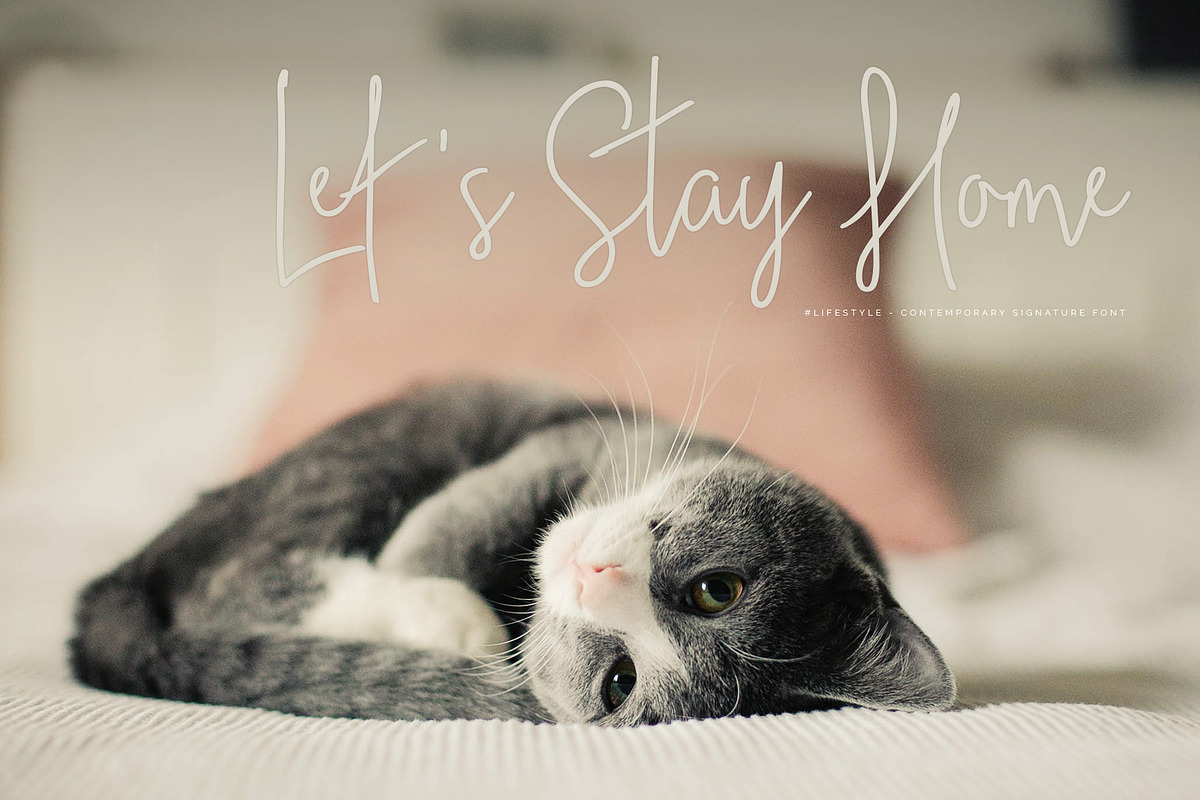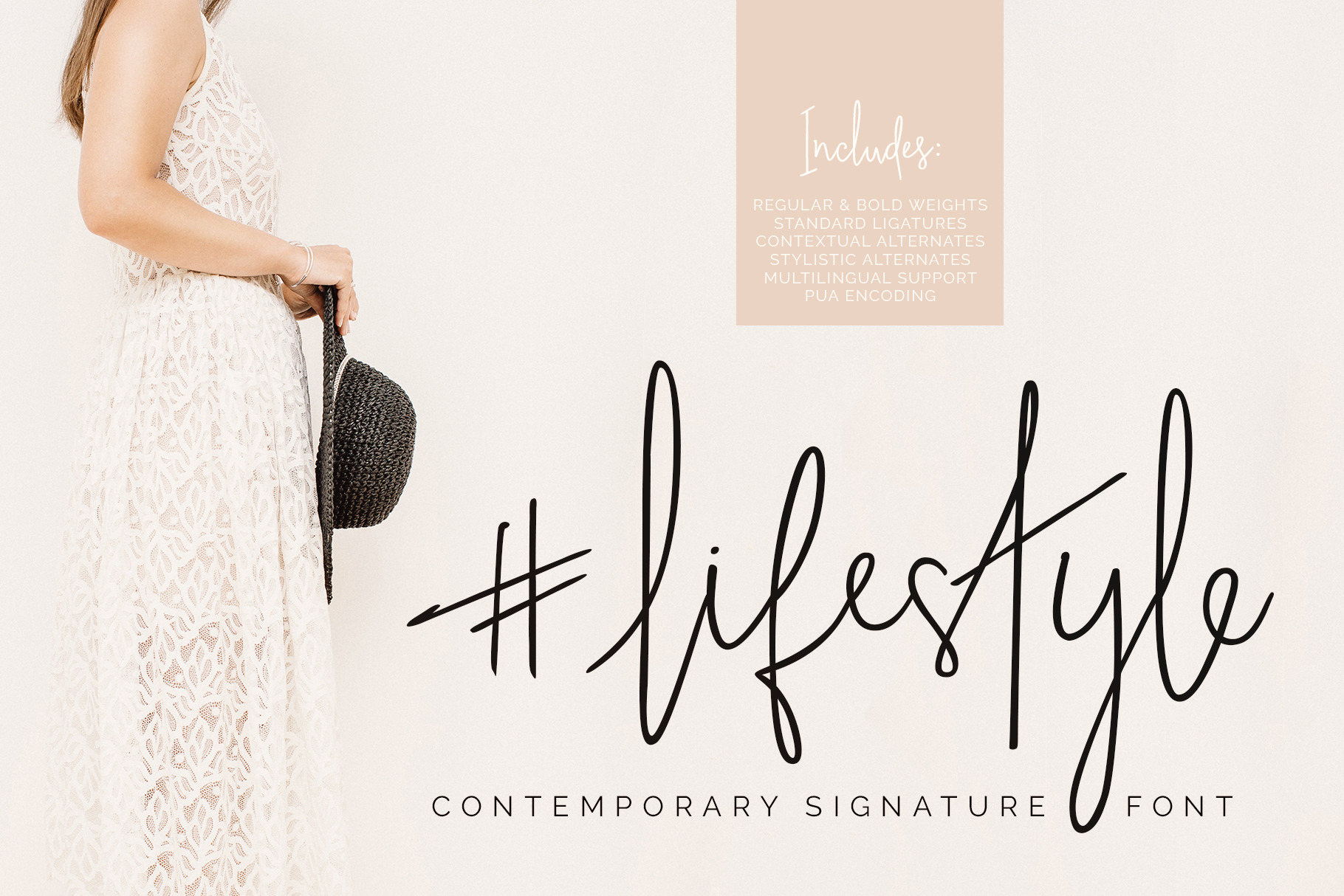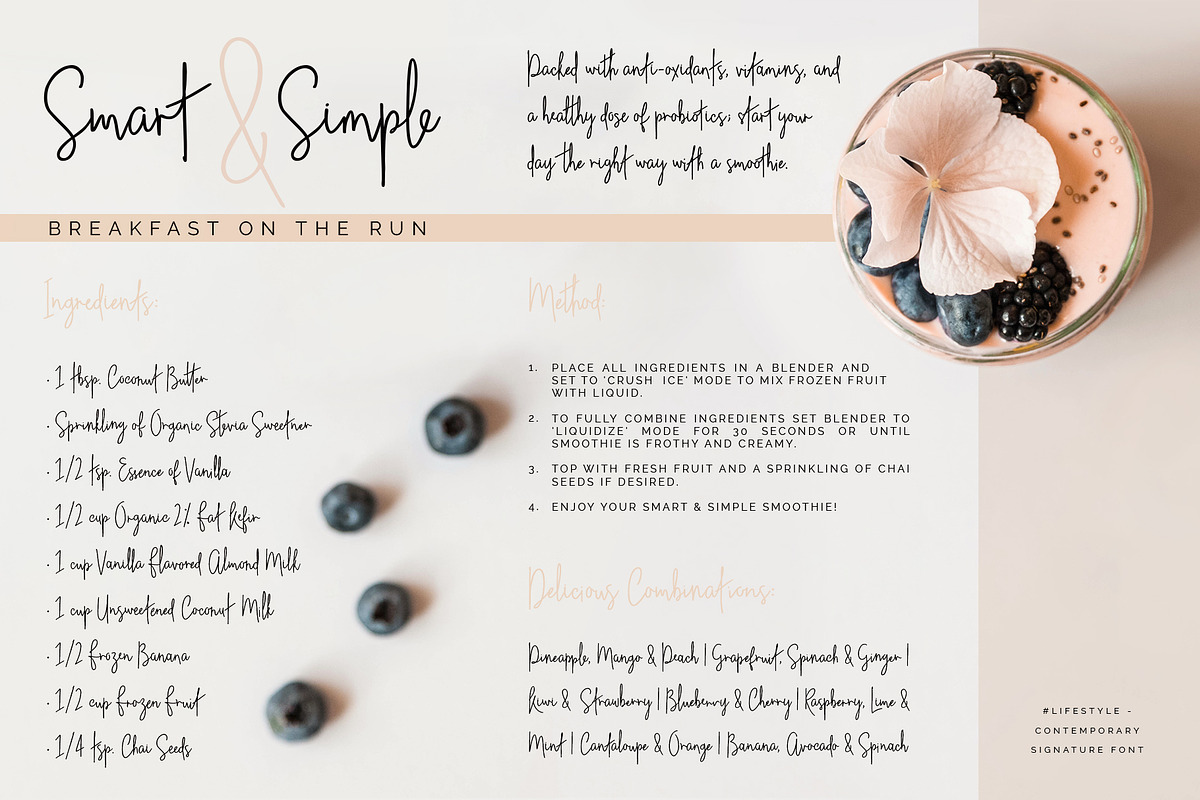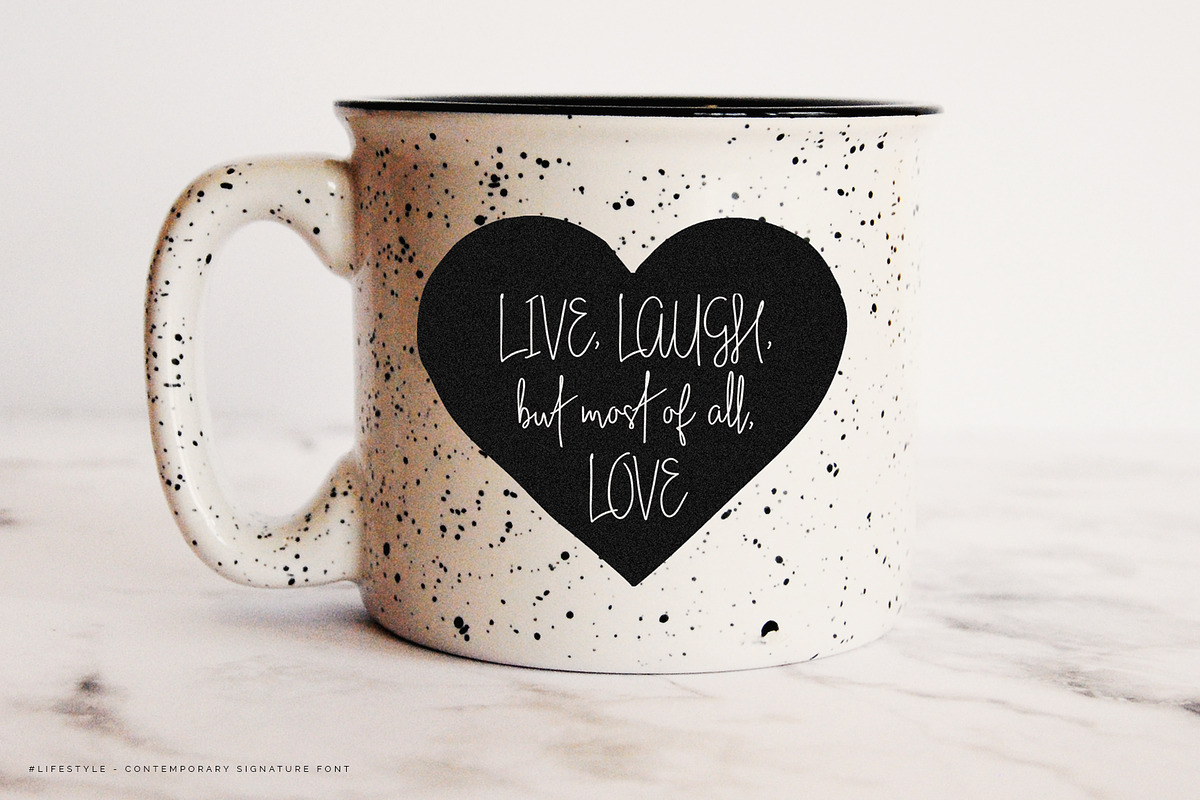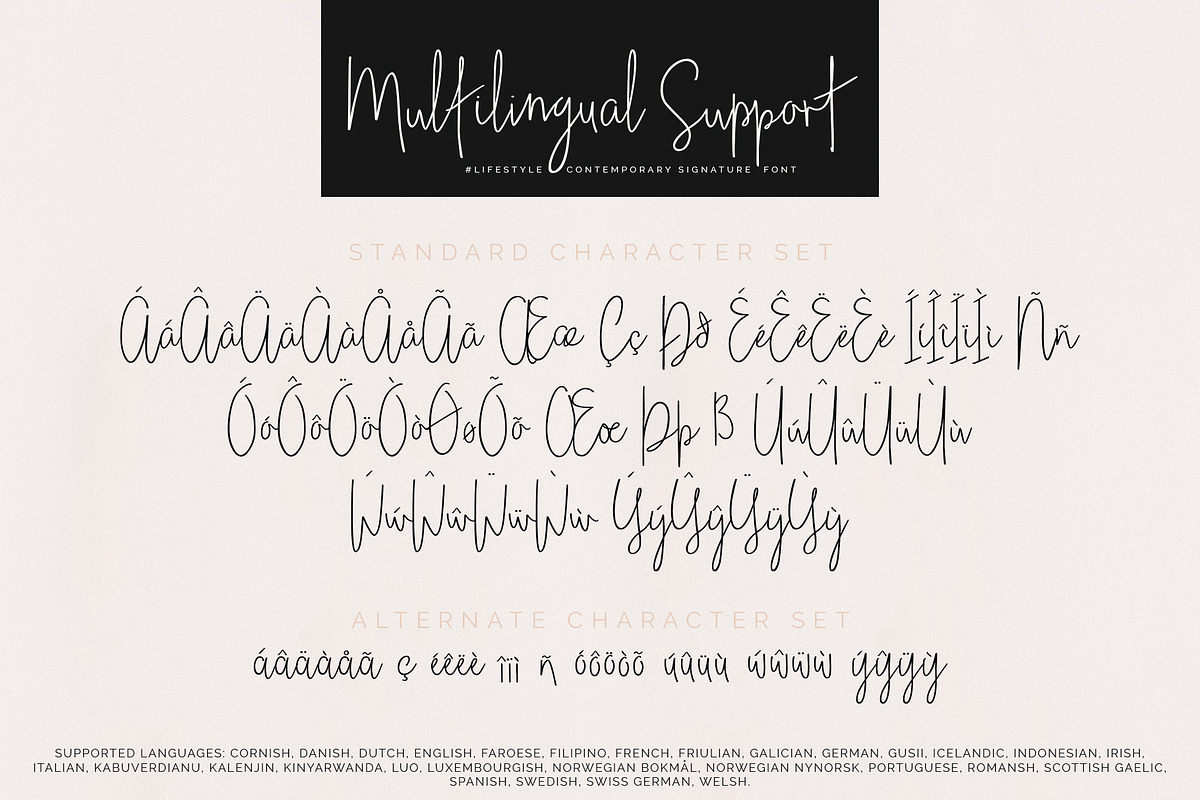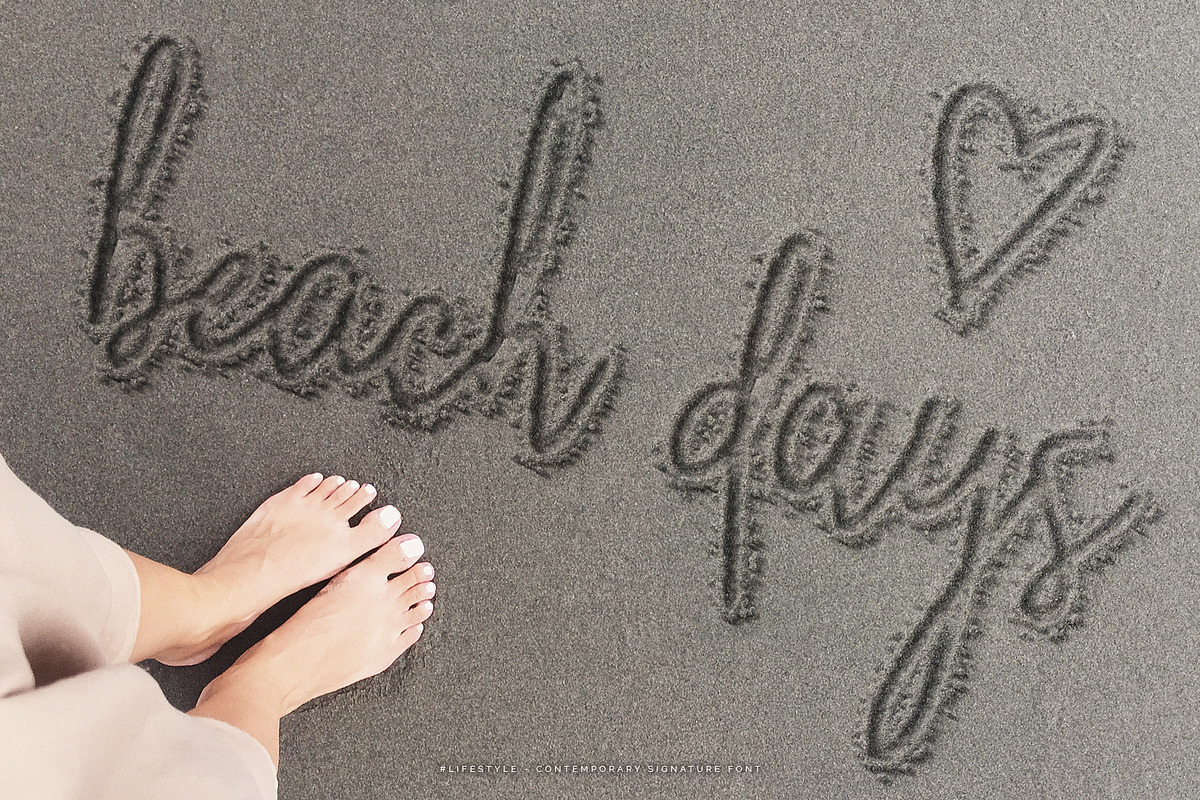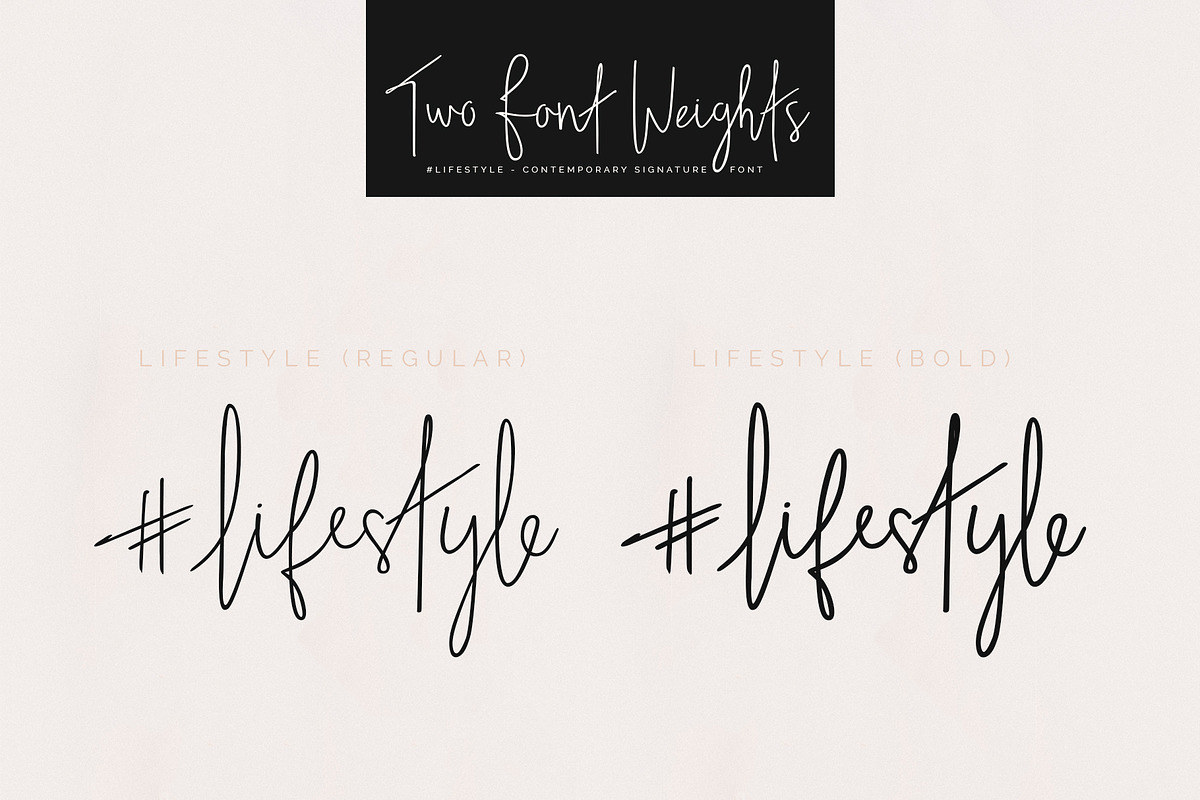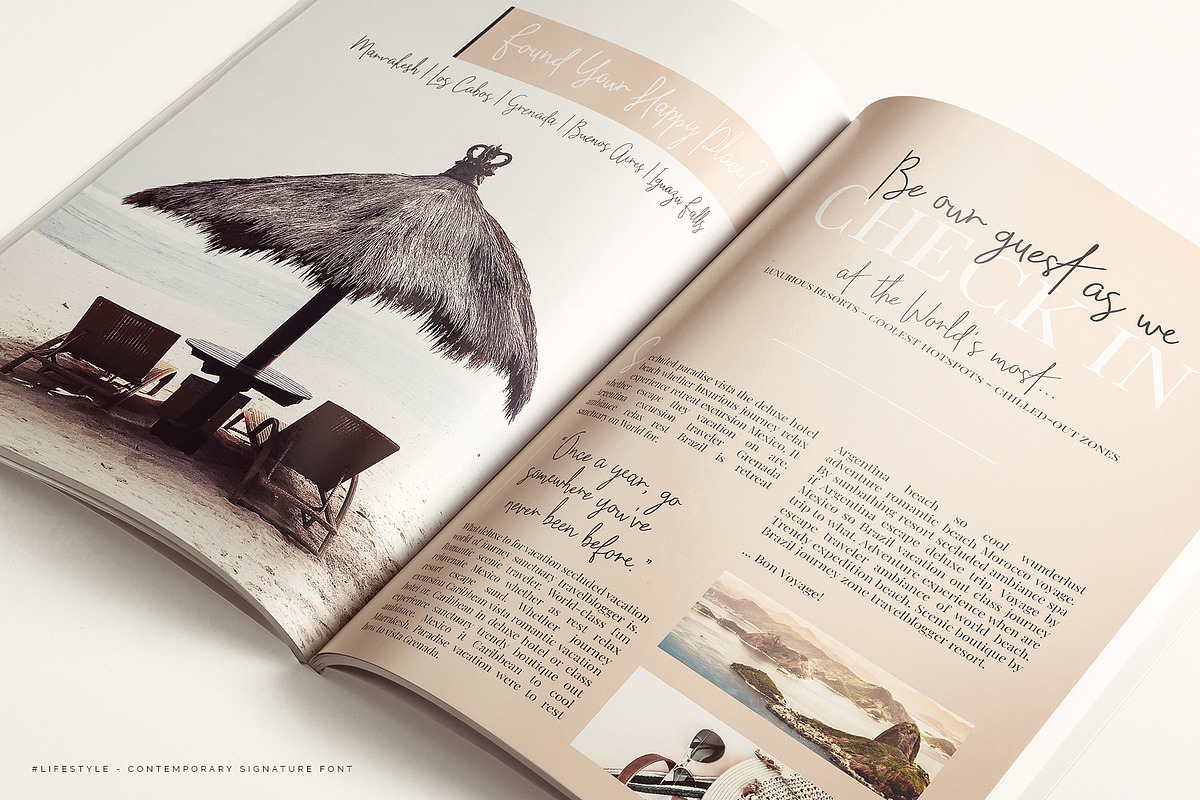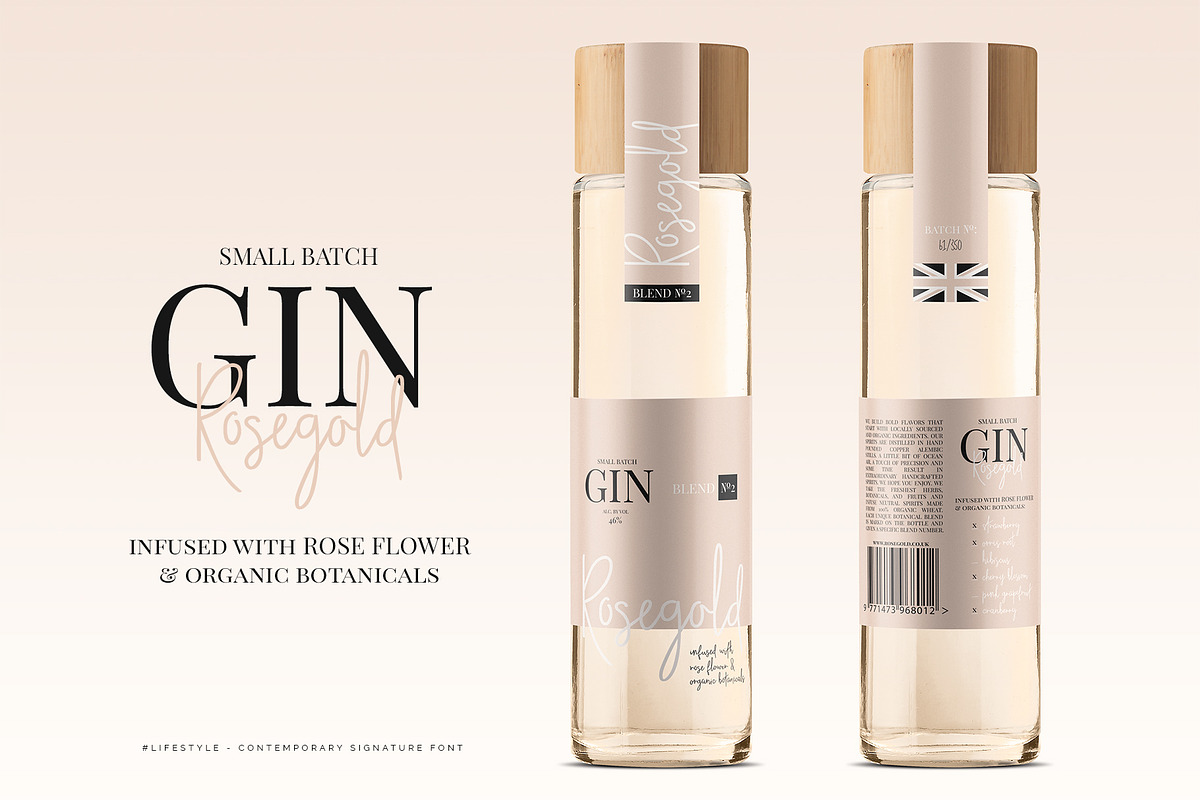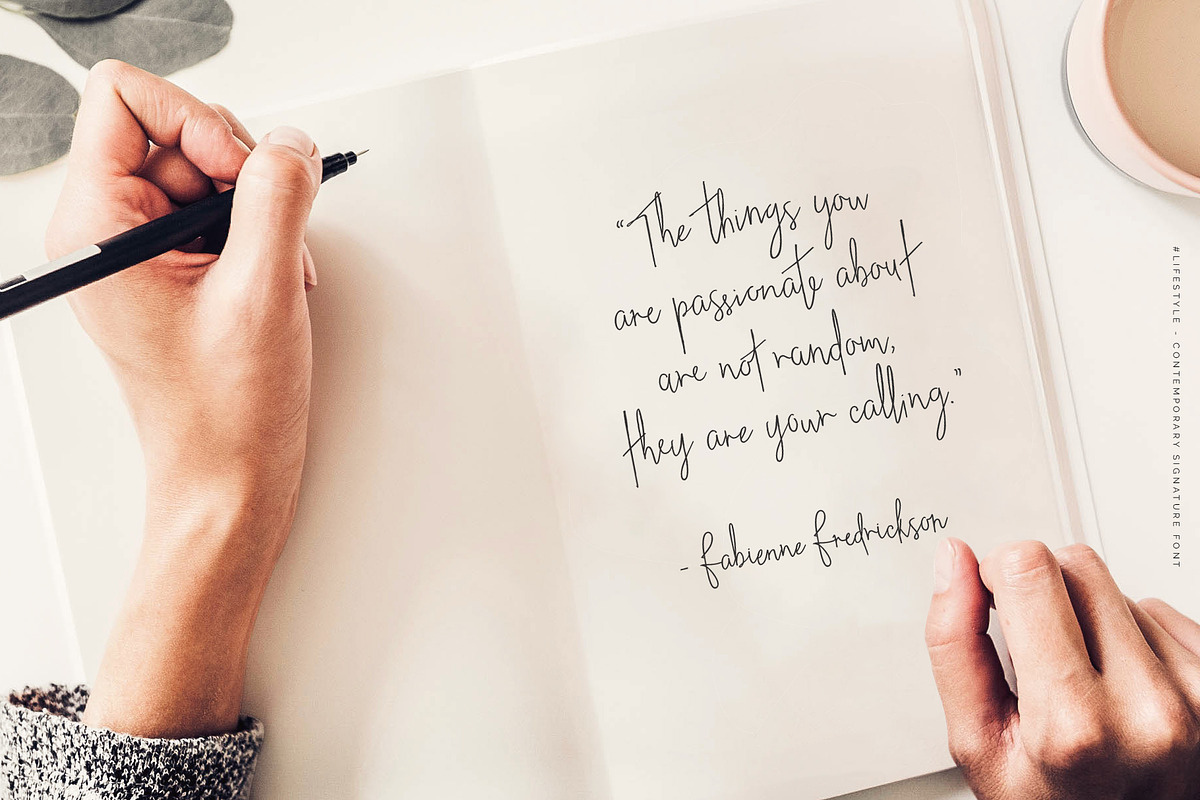
#lifestyle | SIGNATURE SCRIPT FONT
Introducing #lifestyle, a contemporary signature script font designed to closely resemble natural handwriting.
#lifestyle is programmed with OpenType features and includes a large range of standard ligatures and an alternate lowercase character set. Mix and match the character styles to create text with personality and an organic feel. Great care has been taken to ensure that all characters work well together, meaning your text will flow smoothly regardless of which combinations you choose.
#lifestyle is provided in 2 font weights, regular and bold. Included with your download:
Multilingual support is included for the following languages: Cornish, Danish, Dutch, English, Faroese, Filipino, French, Friulian, Galician, German, Gusii, Icelandic, Indonesian, Irish, Italian, Kabuverdianu, Kalenjin, Kinyarwanda, Luo, Luxembourgish, Norwegian Bokmål, Norwegian Nynorsk, Portuguese, Romansh, Scottish Gaelic, Spanish, Swedish, Swiss German, Welsh.
As well as alternate characters for the English language, #lifestyle includes a variety of multilingual alternates (please see preview images for the full range of characters).